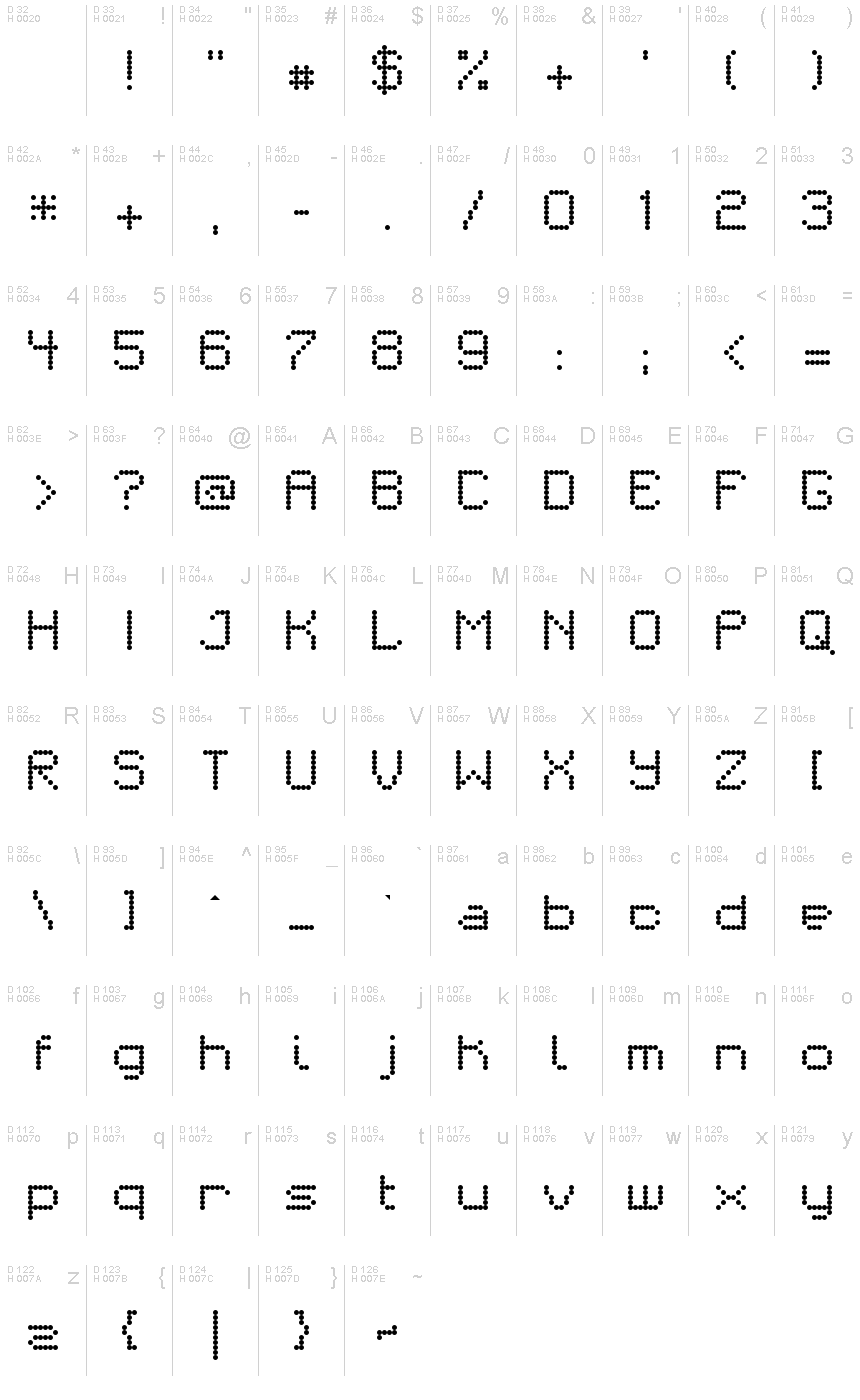
Matrixdancer Regular
Matrixdancer is a captivating display font that exudes a distinct digital aesthetic. Designed by Piratype, this typeface seamlessly blends the precision of a mechanical grid with the fluidity of organic movement.
The linear arrangement of dots and dashes creates a striking visual rhythm, evoking a sense of technological sophistication and futuristic energy. Matrixdancer's striking character shapes and unconventional kerning make it an ideal choice for bold branding, cutting-edge web design, and immersive digital experiences. Its versatile nature allows it to shine in a variety of contexts, from cyberpunk-inspired artwork to sleek user interfaces.
Matrixdancer's unique typographic personality is a testament to the designer's keen eye for innovation and the power of thoughtfully crafted digital typography.
The linear arrangement of dots and dashes creates a striking visual rhythm, evoking a sense of technological sophistication and futuristic energy. Matrixdancer's striking character shapes and unconventional kerning make it an ideal choice for bold branding, cutting-edge web design, and immersive digital experiences. Its versatile nature allows it to shine in a variety of contexts, from cyberpunk-inspired artwork to sleek user interfaces.
Matrixdancer's unique typographic personality is a testament to the designer's keen eye for innovation and the power of thoughtfully crafted digital typography.